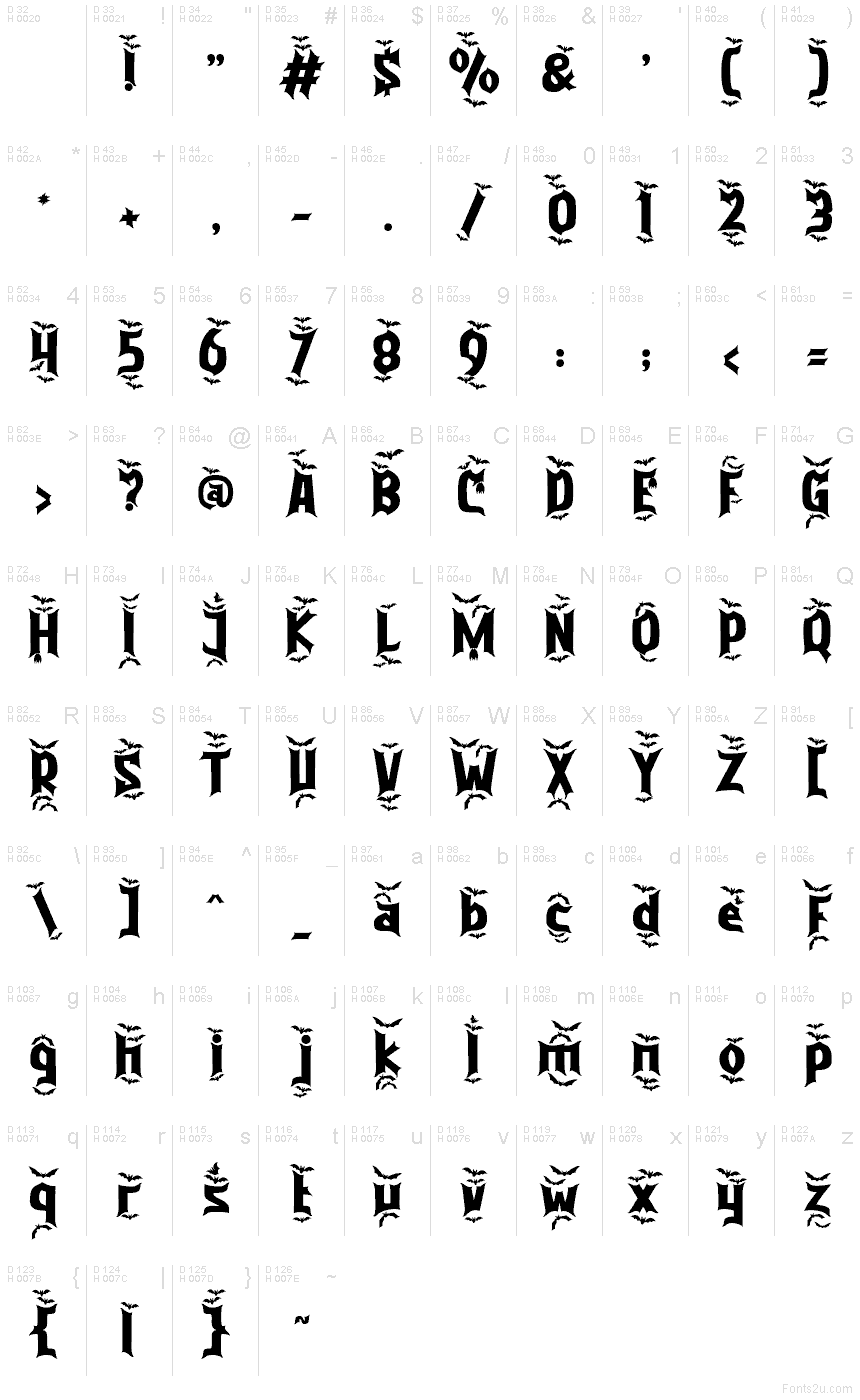
Purgatorie Bat
Purgatorie Bat font by PutraCetol Studio is a free Halloween display font. Part of the Purgatorie family, it conjures a gothic mood with jagged, blackletter-inspired forms that feel carved and weathered, while flocks of silhouetted bats perch along the strokes. The spacing stays open enough to read at a glance, but the inky texture and winged accents deliver instant “spook night” energy.
Using Purgatorie Bat, headlines snap to attention on party posters, haunted house signage, trick-or-treat bags, invitations, seasonal menus, YouTube thumbnails, and stickers. This free font shines on big, bold titles; keep body copy in a clean sans for contrast. Tip: set it large with generous tracking to let those bat details breathe.